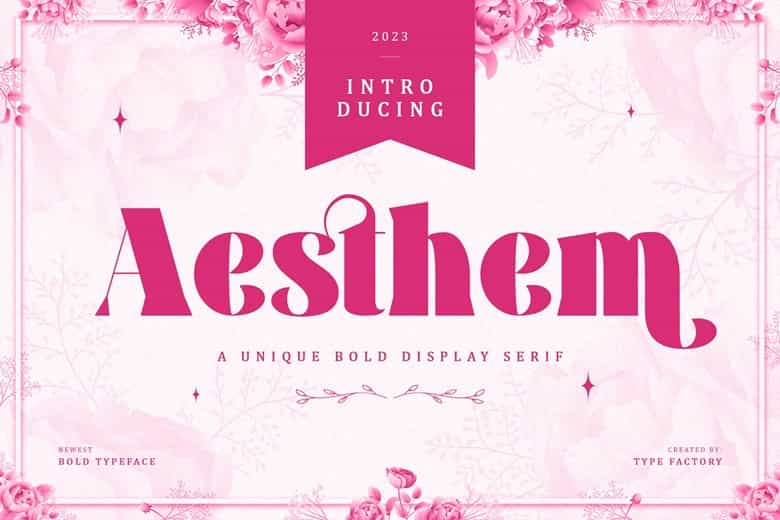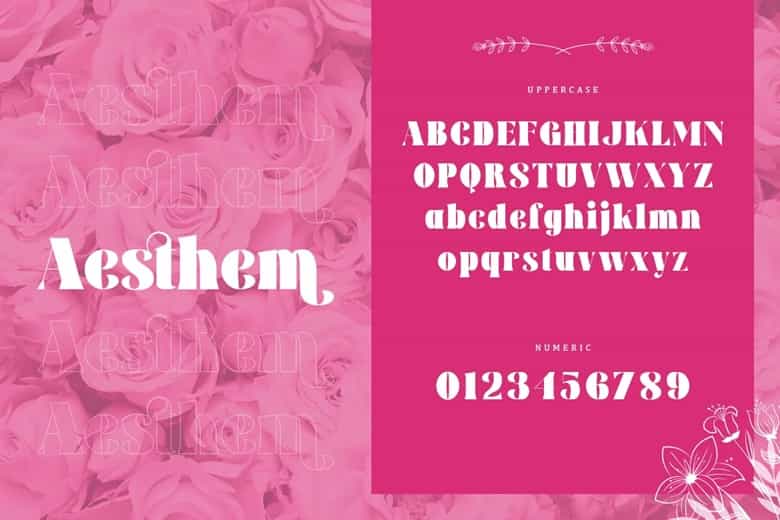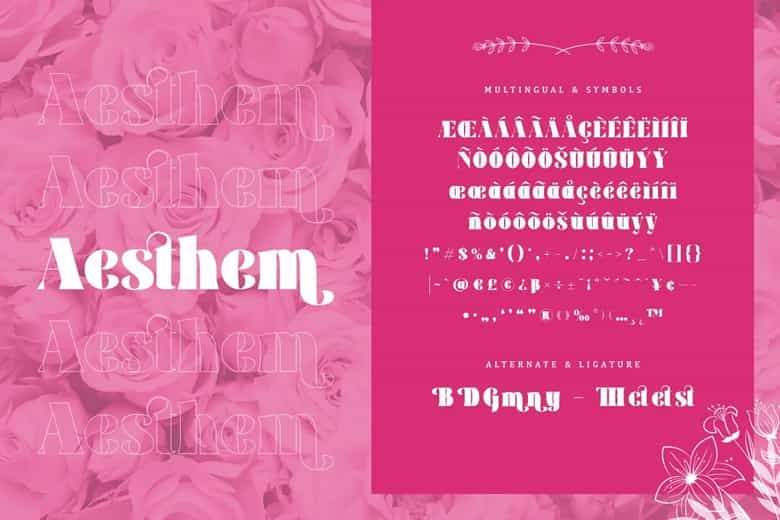
Aesthem is a smooth and powerfully looking typeface that belongs to the display serif family and that is what makes this type elegant and strong at the same time. Aesthem’s strokes are thick and contrasting, and serifs are strong and precise to make a statement in logos, headlines, posters, packaging, and editorials.